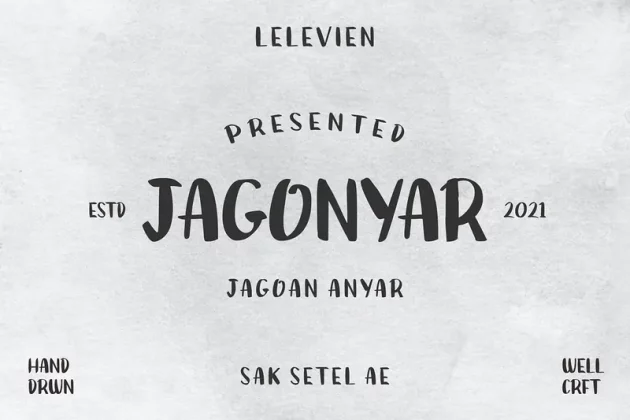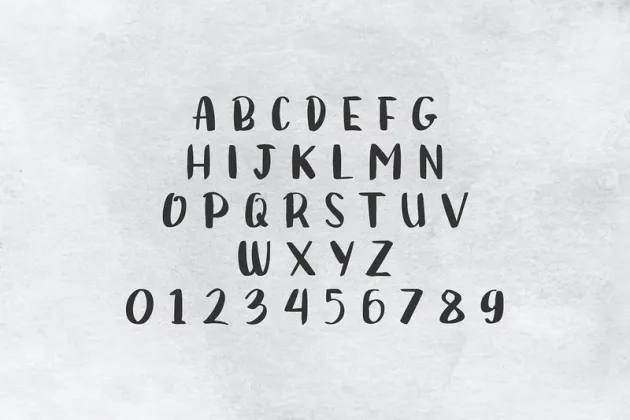
JAGONYAR FONT
About JAGONYAR Font
JAGONYAR FONTis a luxury and authentic display font. consist of 3 different thickness suit your design taste and needed. The font is suitable for any branding project like logo, t-shirt printing, template and many more. outstanding in a wide range of contexts.